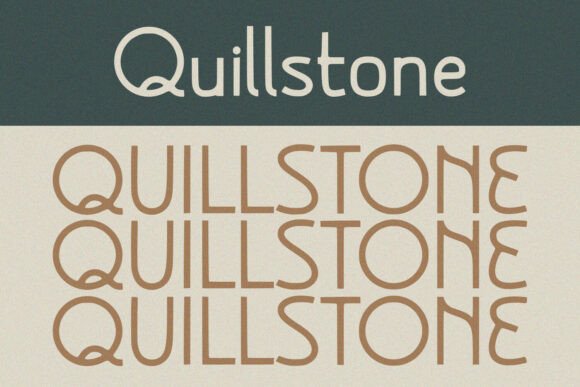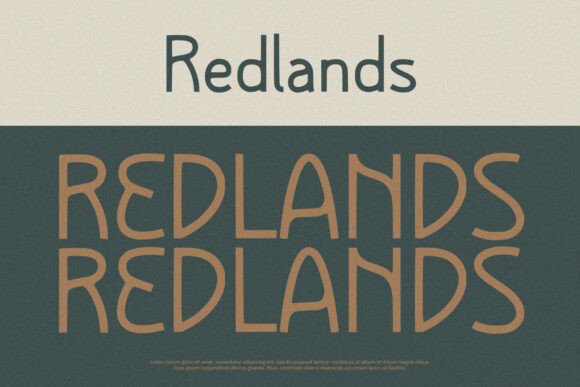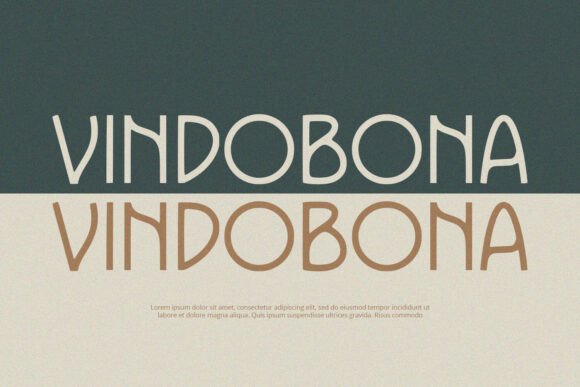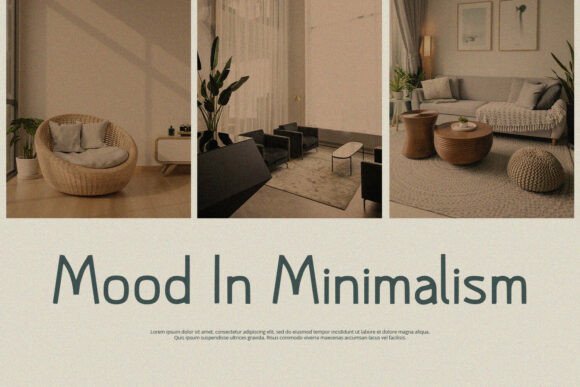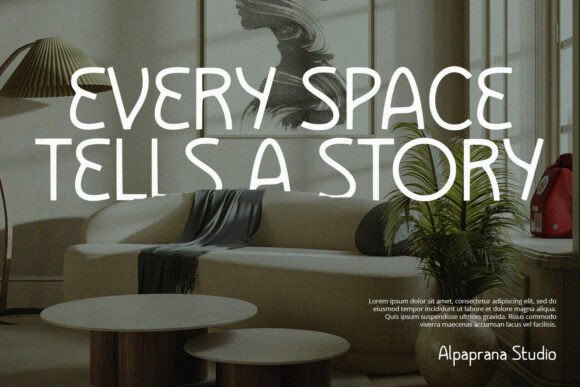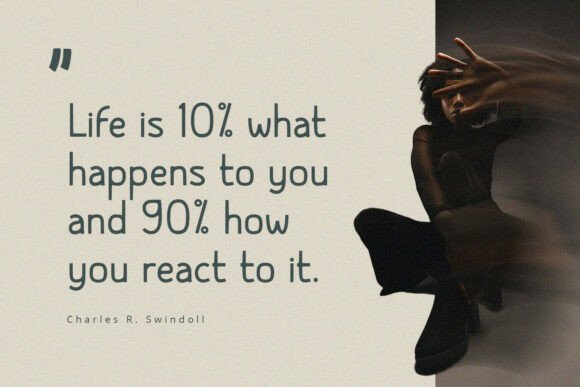
Bastion Font: Elevate Your Designs with Elegance and Versatility
In the realm of typography, the right font can make or break a design project. For those seeking a blend of elegance, modernity, and versatility, the Bastion font stands out as an exceptional choice. This light sans-serif font has been gaining popularity among designers and crafters for its clean lines, sophisticated appeal, and adaptability across various project types.
Characteristics of Bastion Font
Bastion is characterized by its light weight and sans-serif design, which lends it a contemporary and streamlined look. This font is meticulously crafted to provide an elegant feel without the heaviness often associated with serif fonts. The result is a typeface that feels both modern and refined, suitable for projects that demand a touch of sophistication.
Versatility of Bastion Font
One of the standout features of the Bastion font is its incredible versatility. Whether you’re working on a branding project, a website design, a print magazine, or any other creative endeavor, Bastion can be seamlessly integrated to enhance your visual storytelling. Its adaptability stems from its clean and neutral appearance, which allows it to complement a wide range of design elements without overpowering them.
Use Cases for Bastion Font
- Branding and Logotypes: Bastion’s elegant and modern feel makes it an excellent choice for logos and brand identities that aim to convey sophistication and approachability.
- Web Design: For websites, especially those in the creative, fashion, or lifestyle sectors, Bastion can be used for headings, subheadings, and body text to create a cohesive and visually appealing user experience.
- Print Media: In print, Bastion shines in magazines, brochures, and flyers, offering a fresh and contemporary look that can help your content stand out.
- Packaging: For product packaging, Bastion’s clean and elegant appearance can enhance the overall aesthetic, making your products more attractive to potential customers.
Why Choose Bastion Font?
Choosing Bastion for your design projects comes with several advantages:
- Elegance: It brings a level of sophistication and elegance that can elevate the overall look of your designs.
- Legibility: Despite its light weight, Bastion maintains excellent legibility, ensuring your message is conveyed clearly across various mediums.
- Flexibility: Its versatility means you can use it across a multitude of projects without worrying about it looking out of place.
Tips for Using Bastion Font Effectively
To maximize the impact of Bastion in your designs, consider the following tips:
- Mix and Match: Don’t be afraid to combine Bastion with other fonts to create visual interest. Its neutral base pairs well with a variety of typefaces.
- Play with Weights: If available, using different weights of Bastion can add depth and hierarchy to your designs.
- Consider Color: The elegance of Bastion can be further emphasized by choosing a color palette that complements its light and airy feel.
Bastion font offers a unique blend of elegance, modernity, and versatility, making it an invaluable asset for designers and crafters. Its suitability for a wide range of projects, from digital designs to print media, ensures that Bastion can be a go-to font in your typography arsenal. By incorporating Bastion into your designs, you’re not just choosing a font; you’re elevating your creative work with a touch of sophistication and a lot of versatility.